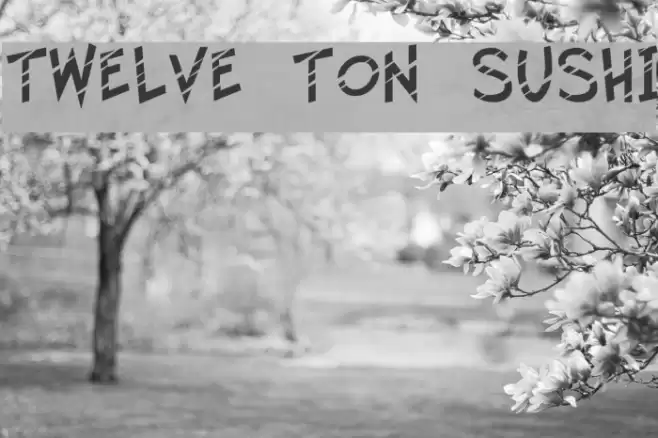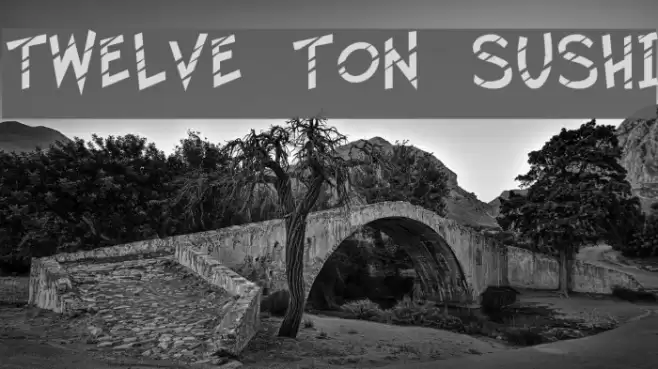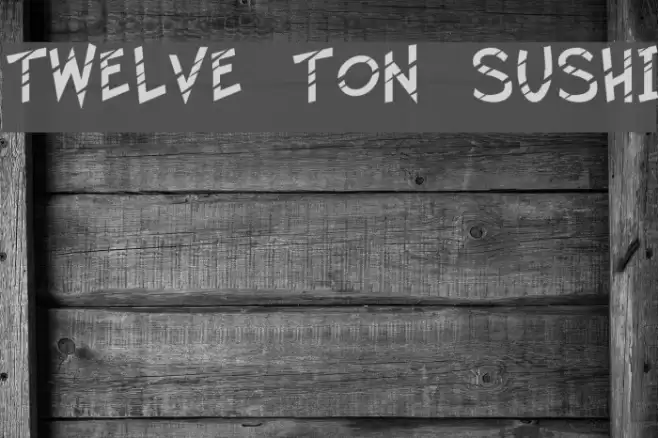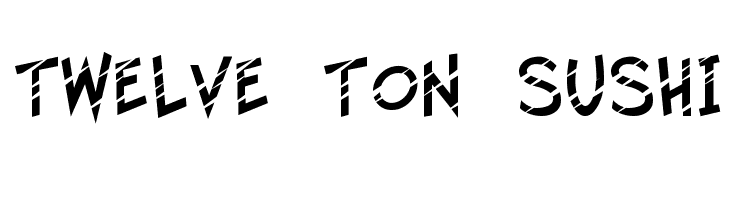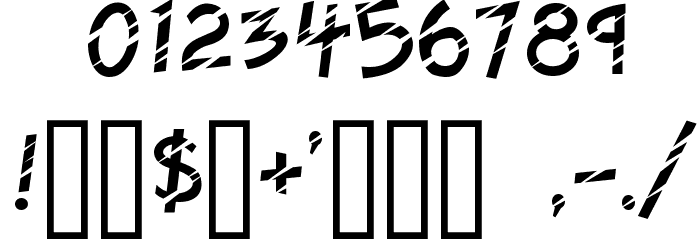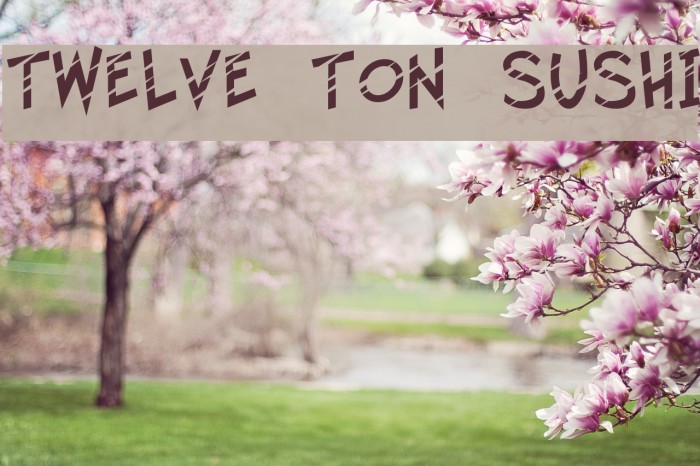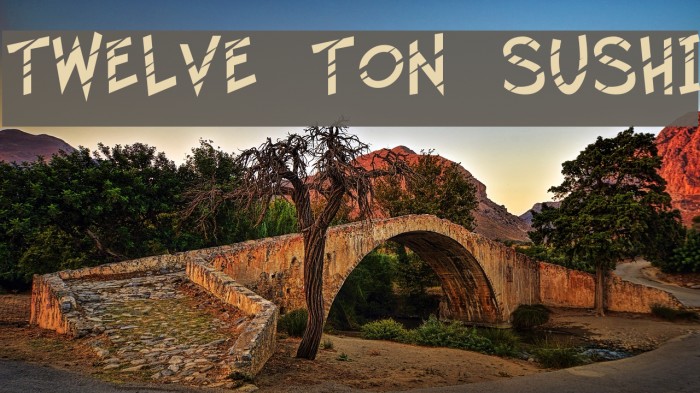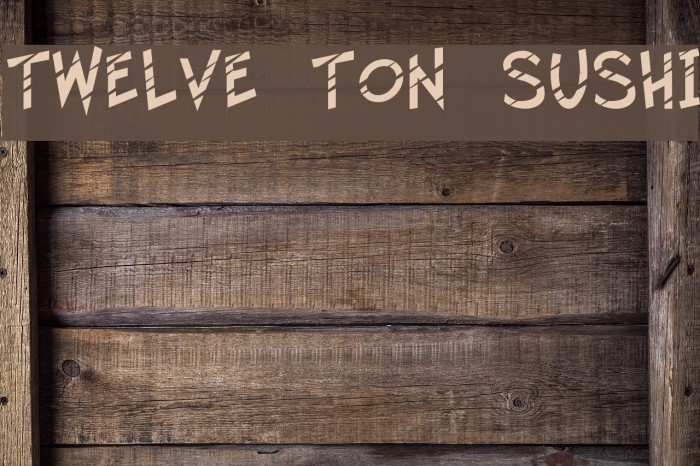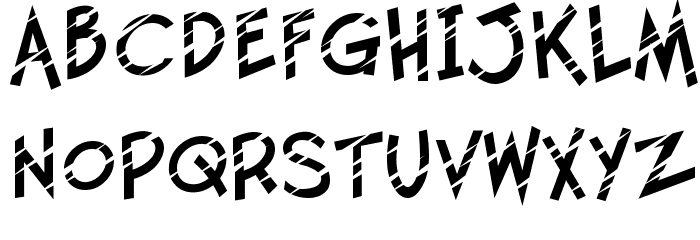
Twelve Ton Sushi Font
Twelve Ton Sushi Description
This font features a bold, dynamic style with a distinct diagonal stripe pattern running through each character, creating a sense of movement and energy. The uppercase and lowercase letters maintain a consistent width, giving the font a cohesive look. The numbers and special characters follow the same design, ensuring uniformity across all elements. The sharp angles and clean lines contribute to a modern and edgy appearance, making it stand out in any design. The font's unique style is both eye-catching and versatile, suitable for a variety of creative applications.
A bold, dynamic font with diagonal stripes and sharp angles for a modern look from Uncategorized fonts.
- Proposed Projects: Ideal for branding, posters, album covers, and any project requiring a striking, modern aesthetic.